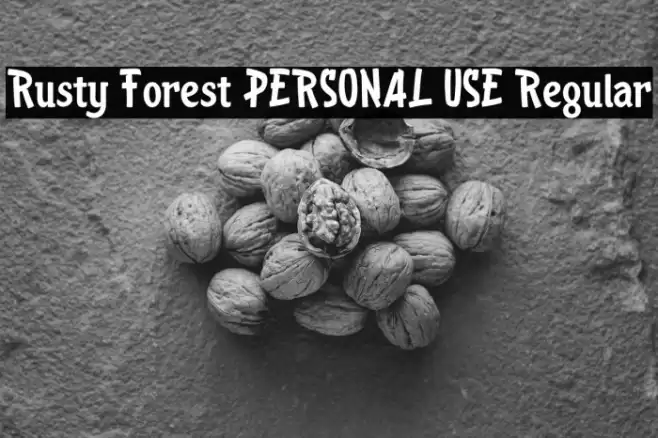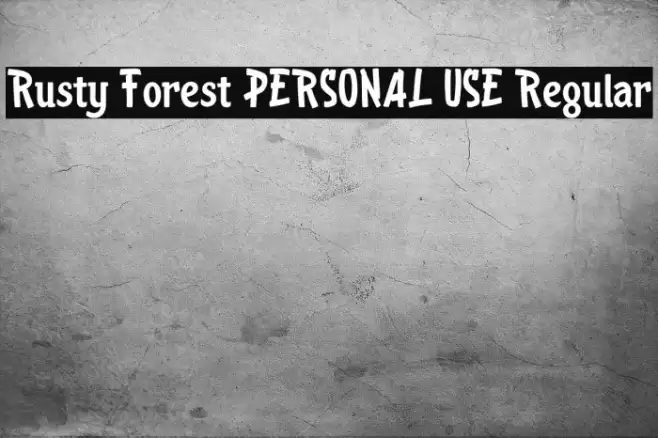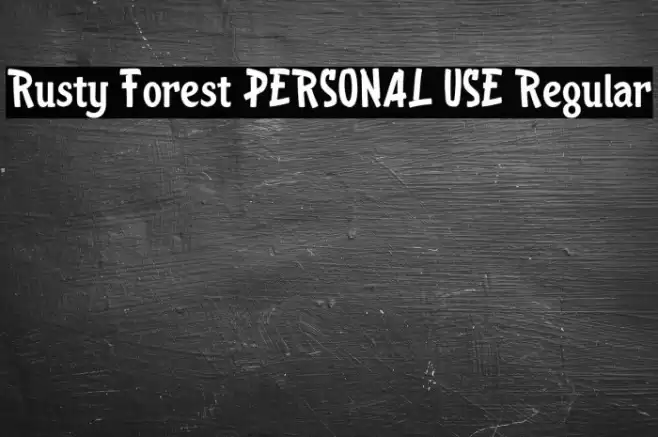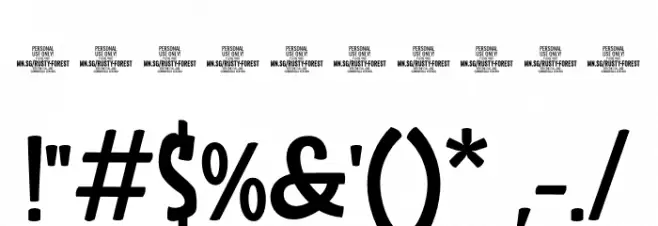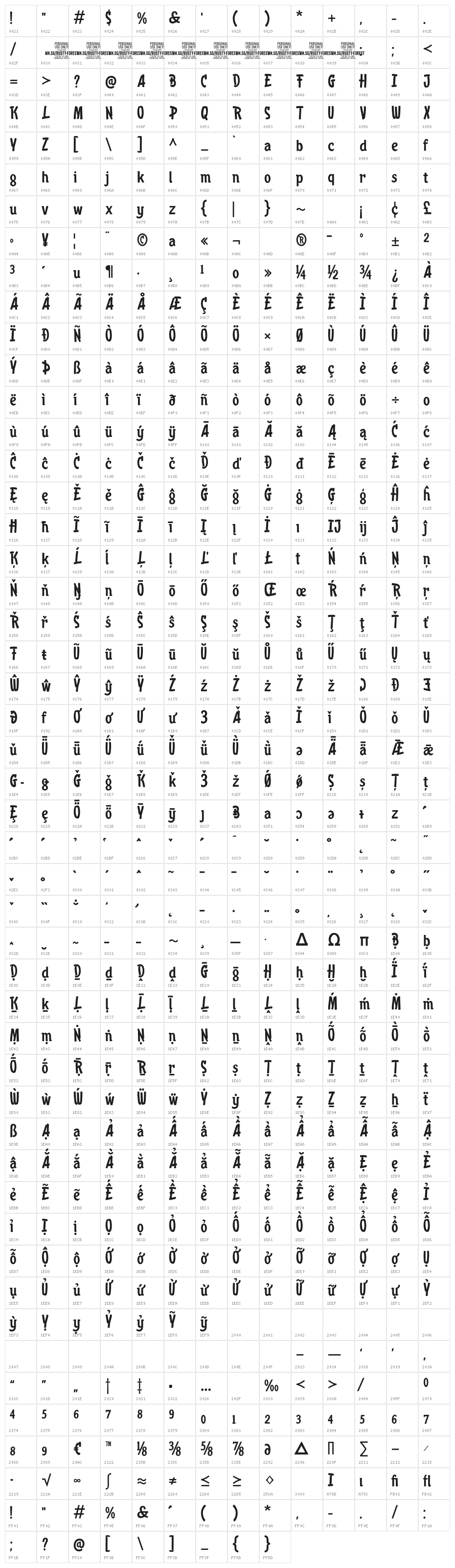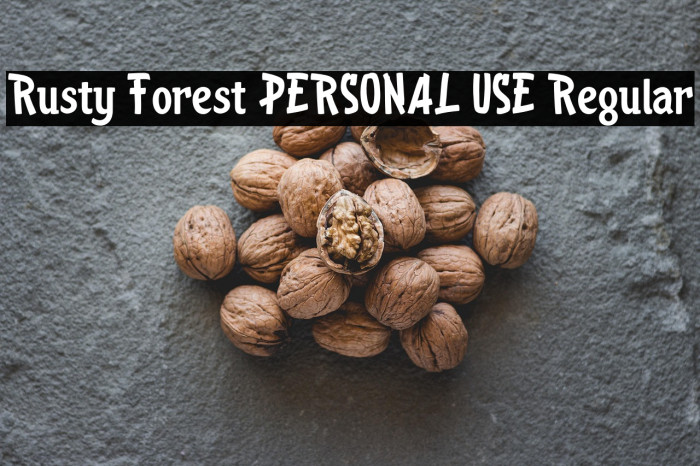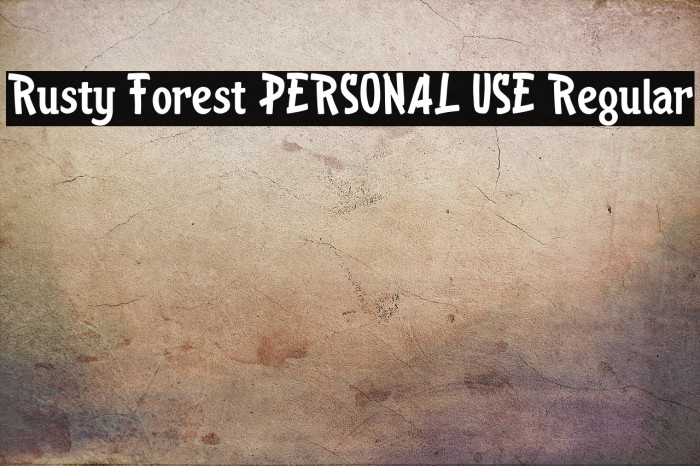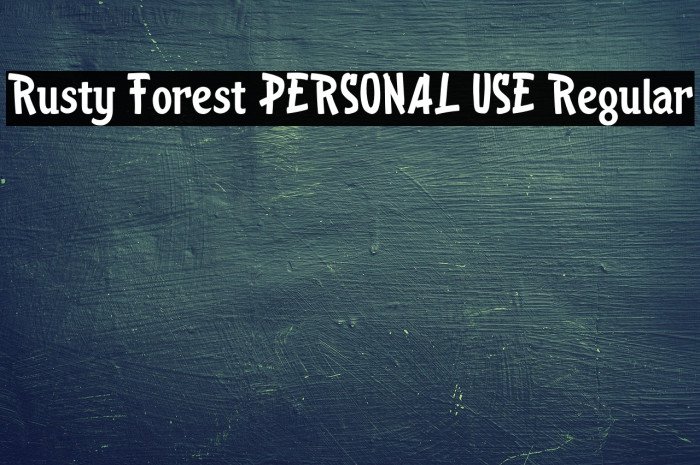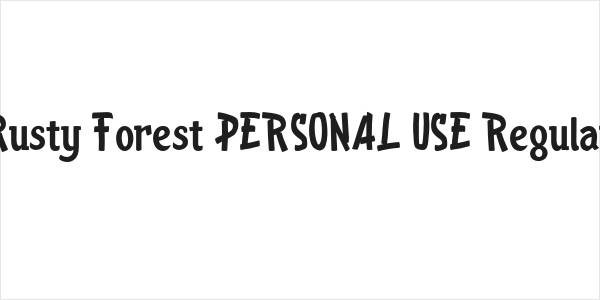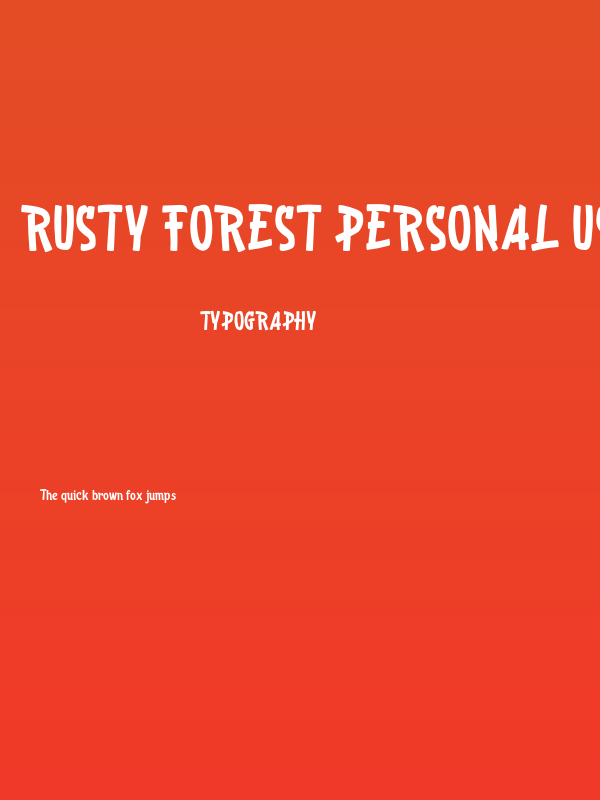
Rusty Forest PERSONAL USE Regular Font
Rusty Forest PERSONAL USE Regular Description
This font features a bold and playful design with a hand-drawn aesthetic. The characters have a slightly uneven, organic feel, giving them a rustic charm. The uppercase letters are tall and slightly condensed, while the lowercase letters maintain a consistent height, contributing to a cohesive look. The strokes are thick and rounded, providing a strong visual impact. Special characters and numbers are designed with the same playful style, ensuring uniformity across all glyphs. This font is ideal for projects that require a touch of whimsy and creativity.
A bold, playful font with a hand-drawn, rustic charm from Uncategorized fonts.
- Proposed Projects: Great for children's books, playful branding, posters, and creative invitations.